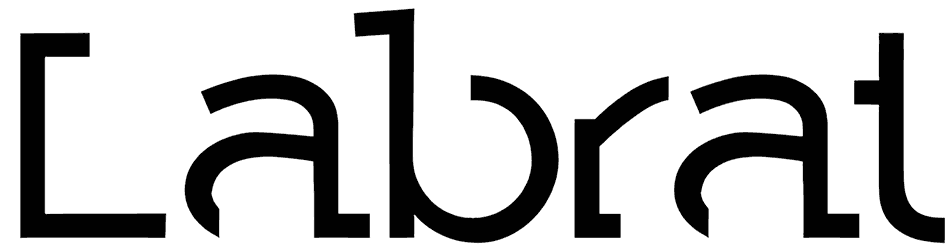
Labrat Font
Designed byApostrophic Labs
Today’s introduction will level up your texts! Labrat is a typeface with two fonts in regular and semi-bold styles. This techno font has cutouts and sharp characters that will convey a modern look to your text.
You can use it for any gaming texts and headlines, electronic product designs, personal blog banners, movie titles, and club event flyers. This robot font is definitely not for speed-reading, and you need to focus a bit to figure them out.